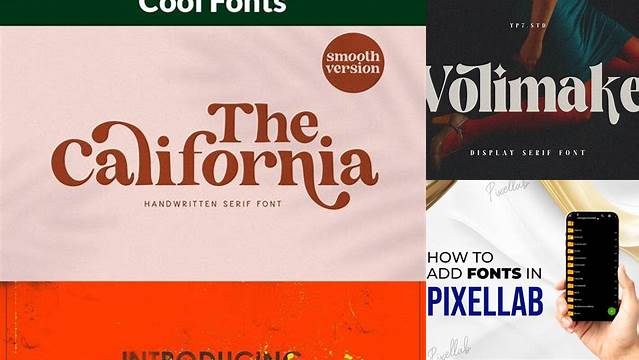
Cool Fonts For PixelLab: Level Up Your Designs!
Hey guys! Ever feel like your PixelLab designs are missing that oomph? The secret ingredient is often the perfect font. Let's dive into the amazing world of fonts in PixelLab and how you can use them to transform your creations. We're talking about everything from finding the right style to installing custom fonts and making your text truly pop. So, buckle up and get ready to become a font master!
H2: Understanding Font Basics in PixelLab
So, what are fonts anyway? Simply put, they're the style and design of your text. In PixelLab, choosing the right font is crucial for conveying your message effectively. Think about it: a playful, bubbly font might be perfect for a birthday invitation, but it wouldn't work so well for a formal business presentation, right? This section will cover all the basic stuff about fonts within the app, ensuring that you're comfortable navigating the font selection process and understanding what makes a font tick. We'll explore the default fonts PixelLab offers, how they're categorized, and give you some tips on how to quickly find the perfect match for your project. Get ready to decode the language of fonts!
H2: Exploring Default Fonts in PixelLab
PixelLab comes pre-loaded with a bunch of fonts, which is super handy for getting started. It’s like having a starter kit for your design journey. But navigating through them can feel overwhelming if you don't know what you're looking for. We'll break down the different styles of default fonts – from classic serif fonts that give off a traditional vibe to modern sans-serif fonts that scream clean and contemporary. We’ll also highlight some hidden gems within the default collection that you might have overlooked. Think of this as a guided tour through the PixelLab font library, so you can confidently choose the best option for your needs. You'll be surprised by how much variety you have right at your fingertips!
H2: Finding the Perfect Font Style for Your Project
Okay, so you know there are lots of fonts, but how do you choose the one? This is where the art of matching fonts to your project comes in. Think about the message you want to convey and the overall mood of your design. Are you going for playful and fun? Serious and professional? Vintage and elegant? The font you choose should reflect that. We'll discuss how different font styles evoke different emotions and how to choose fonts that complement your visuals. It’s all about creating a harmonious balance between your text and your design elements. Let's find the perfect font soulmate for your project!
H3: Troubleshooting Font Installation Issues
Sometimes, things don't go quite as planned. You’ve downloaded a font, followed all the steps, but… it’s not showing up in PixelLab! Don’t panic! We’ll walk you through some common font installation issues and how to troubleshoot them. We'll cover things like font format compatibility, file location problems, and other technical glitches. We'll get those fonts working, one way or another!
H3: Understanding Font Licensing
Before you go wild using all those cool new fonts, it's crucial to understand font licensing. Not all fonts are free for commercial use, which means you might not be able to use them in projects you're selling. This section will break down the basics of font licensing, explaining the different types of licenses and what you can and can't do with them. We'll help you stay on the right side of the law and avoid any copyright issues. Let's keep it legal and ethical, guys!
H3: Using Font Combinations for Impactful Designs
One font is great, but two can be even better! Using different fonts together can add visual interest and hierarchy to your designs. This section dives into the art of font pairing, discussing how to choose fonts that complement each other and create a cohesive look. We'll explore different font combinations and give you some tips for creating impactful typography. Think peanut butter and jelly, but for fonts!
H3: Creating Custom Font Combinations for a Unique Style in PixelLab
Ready to ditch the templates and develop your own signature style? We’ll guide you through the process of creating custom font combinations within PixelLab, helping you craft a unique visual identity that sets your designs apart. Let your font creativity shine through!.
So, there you have it! A deep dive into the world of fonts in PixelLab. Now you're equipped to choose the perfect fonts for your projects and create stunning designs. Happy designing, guys!